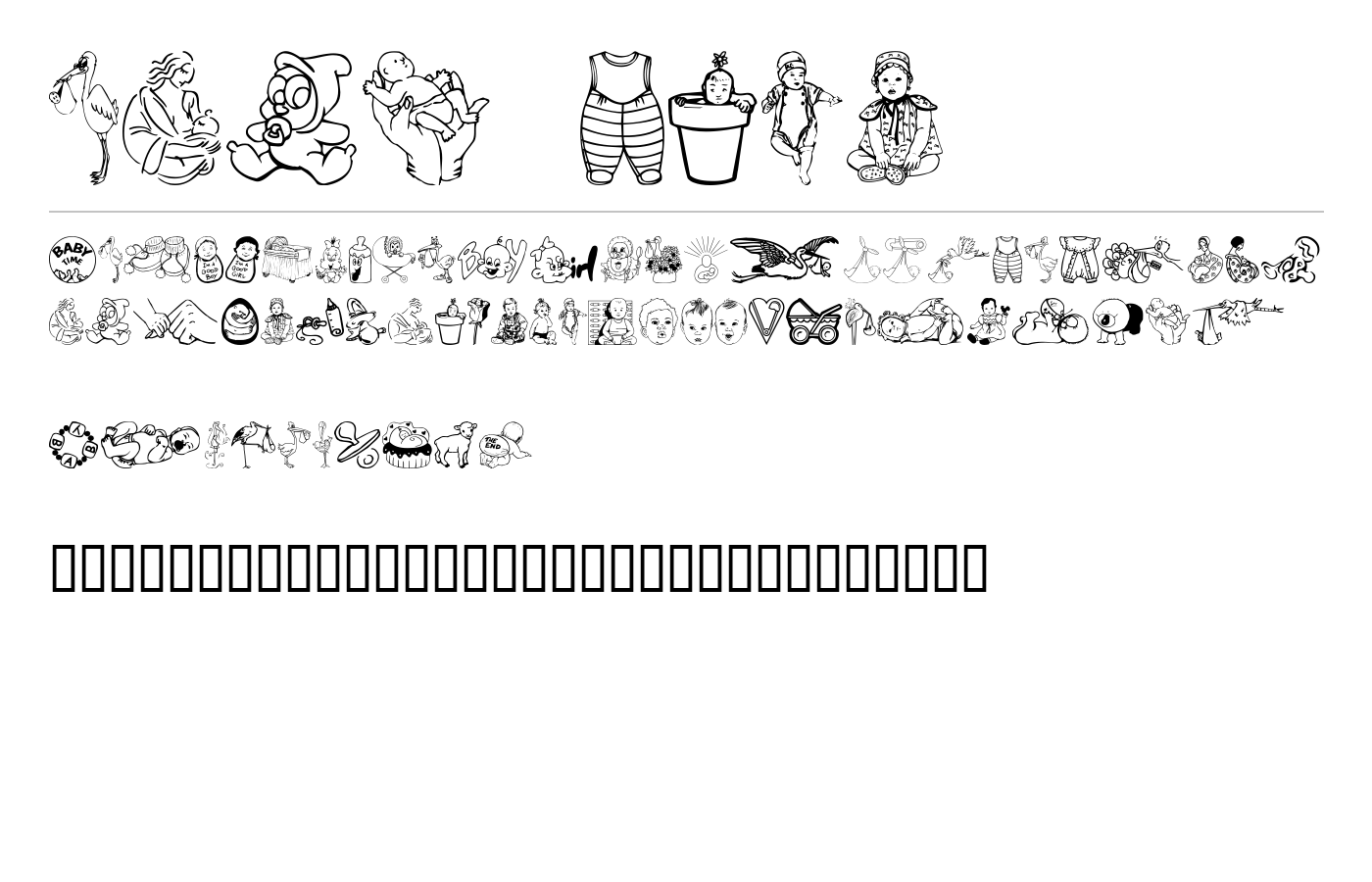
Baby Time Font is a playful and charming dingbat typeface composed entirely of hand-drawn baby-related illustrations. Its whimsical and detailed icons convey warmth and innocence, making it ideal for baby products, children's books, and family-oriented designs where a friendly and nostalgic feel is desired. This font works best in creative projects needing visual storytelling rather than traditional text use.
Baby Time Font
About Baby Time Font